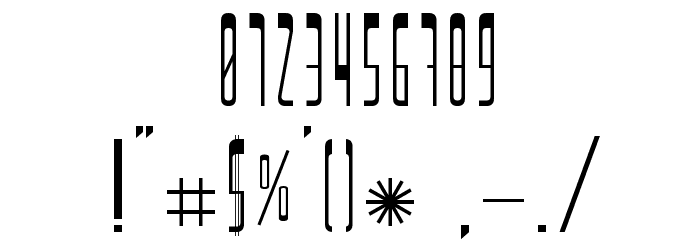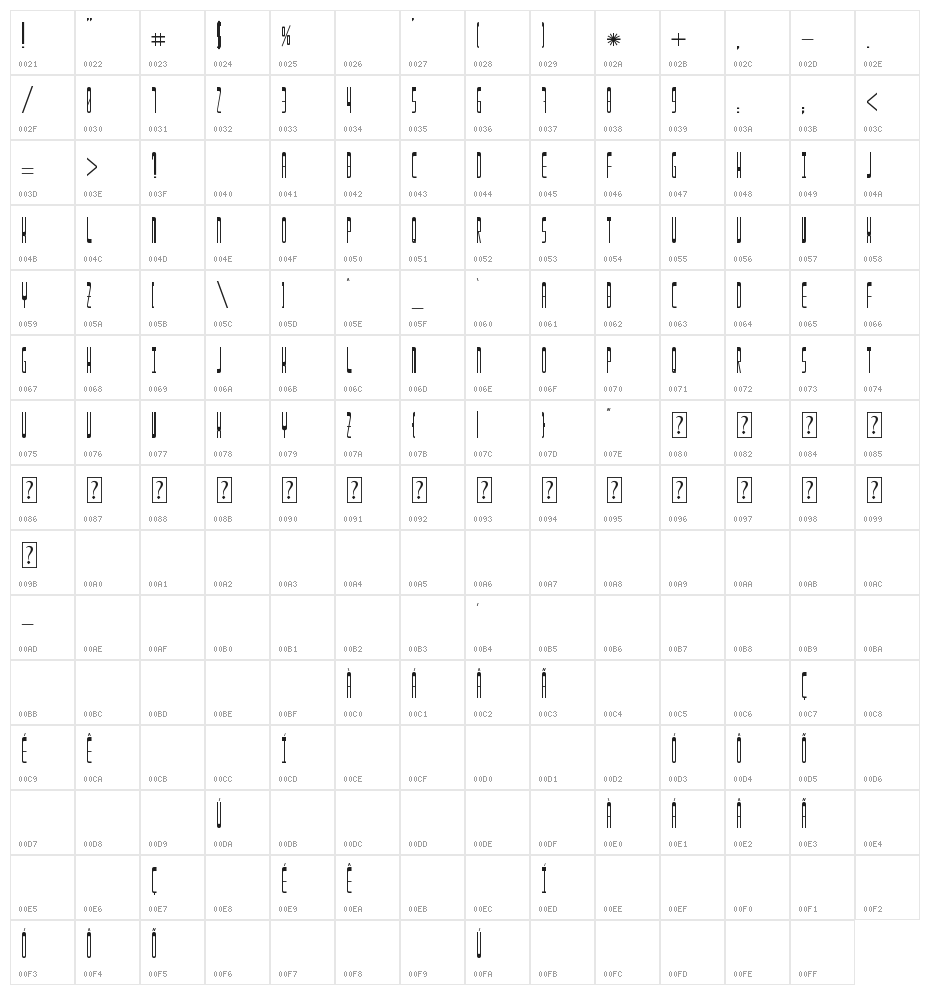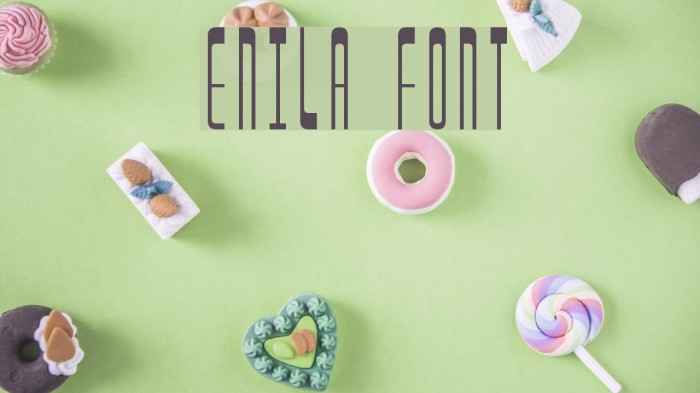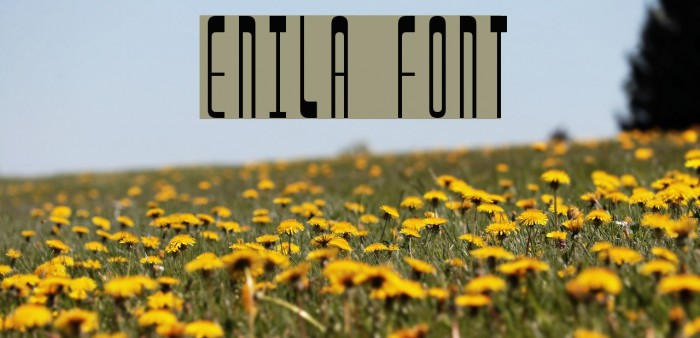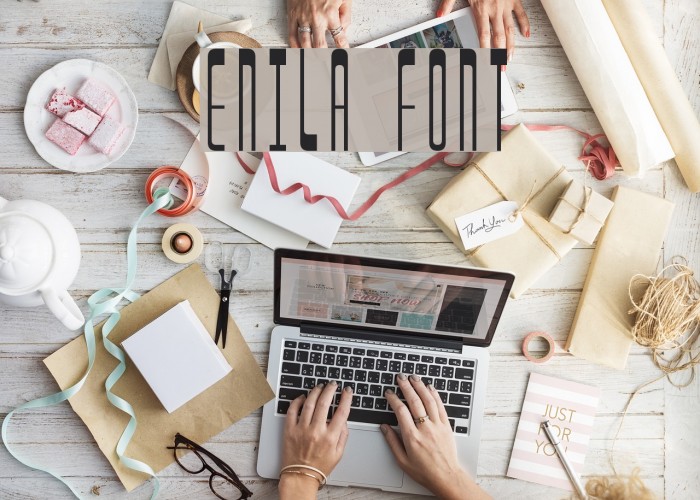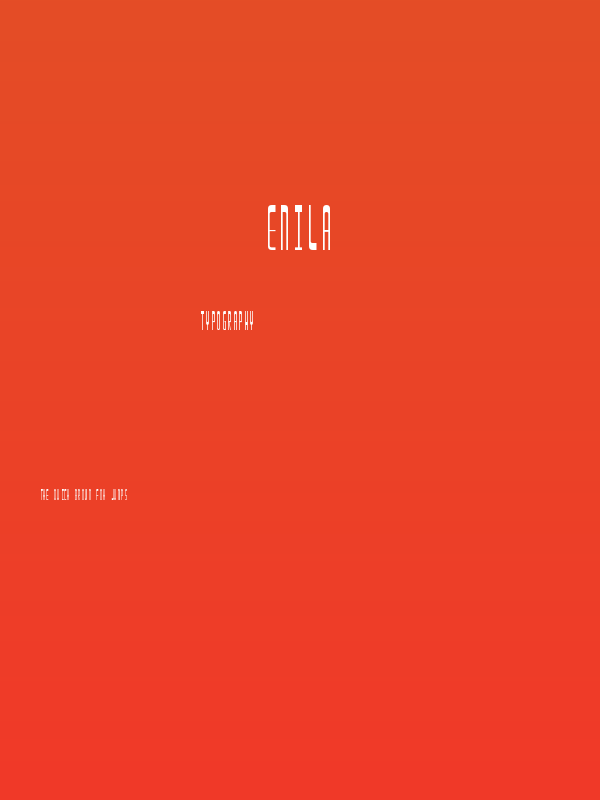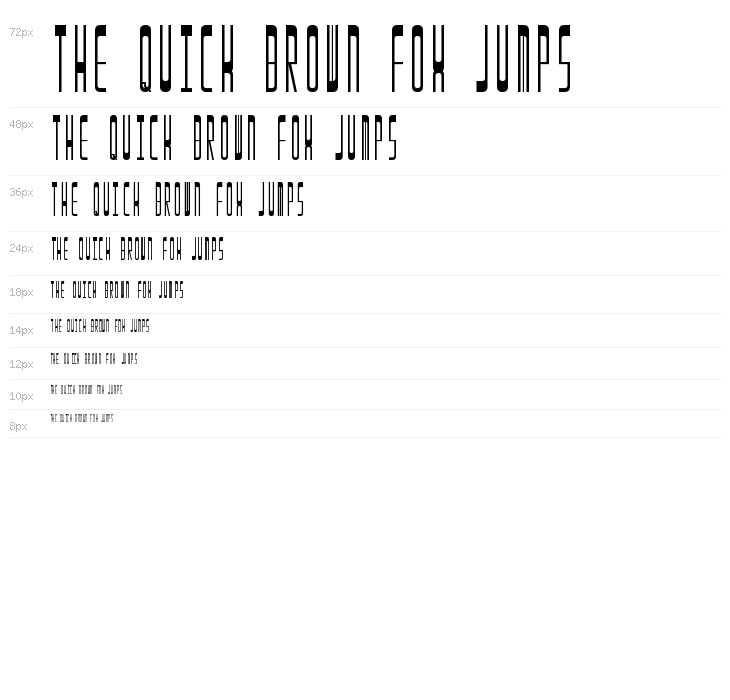
Enila Font
Enila Description
This font features a tall and narrow design with a distinctly modern and futuristic aesthetic. The characters are elongated with a consistent vertical emphasis, giving them a sleek and streamlined appearance. The strokes are uniform in thickness, contributing to a clean and minimalist look. The uppercase and lowercase letters maintain a cohesive style, with subtle variations that add character without compromising readability. The numerals and special characters are designed to match the overall aesthetic, ensuring a harmonious visual experience. This font's unique style makes it suitable for projects that require a contemporary and avant-garde touch.
| Proposed Projects | Ideal for branding, posters, and digital interfaces that require a modern and sleek appearance. |